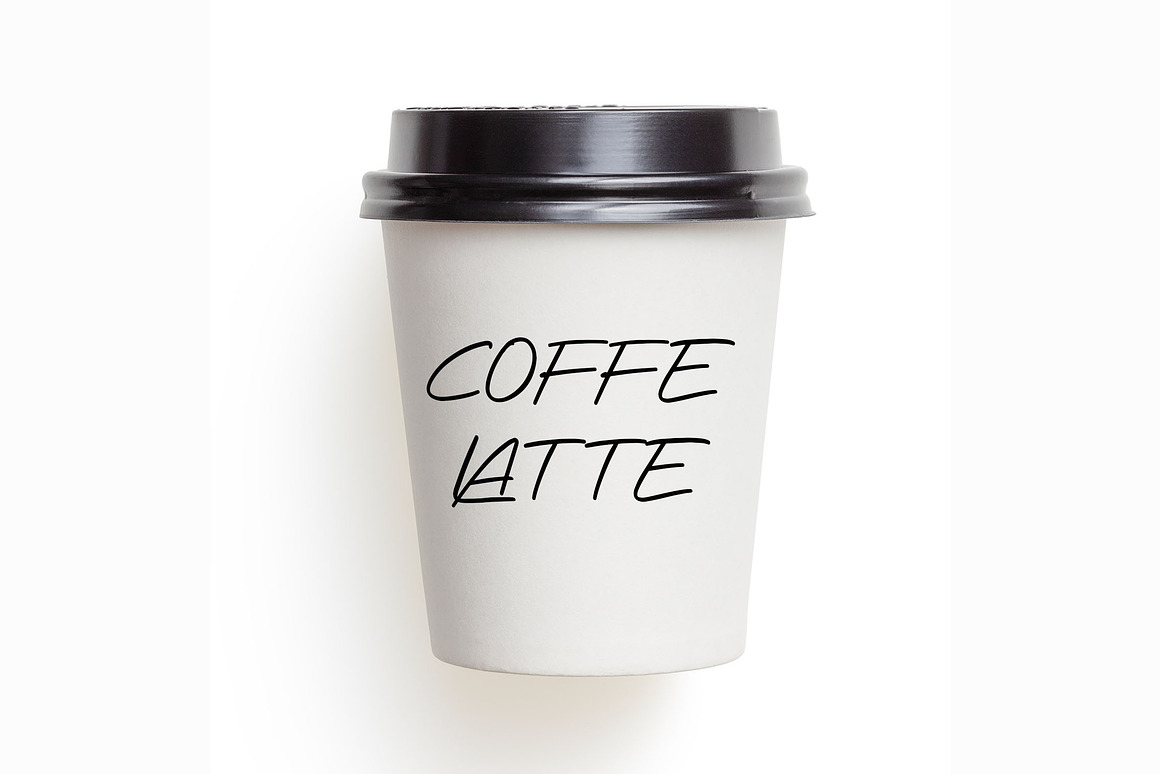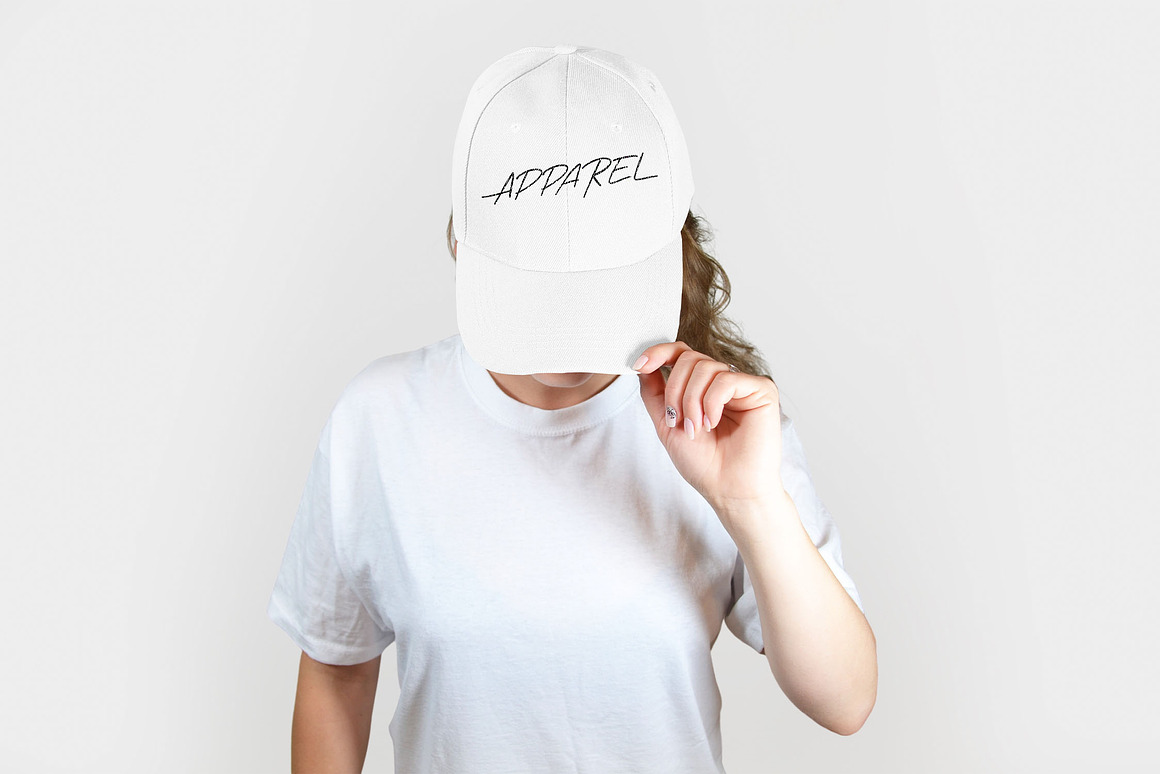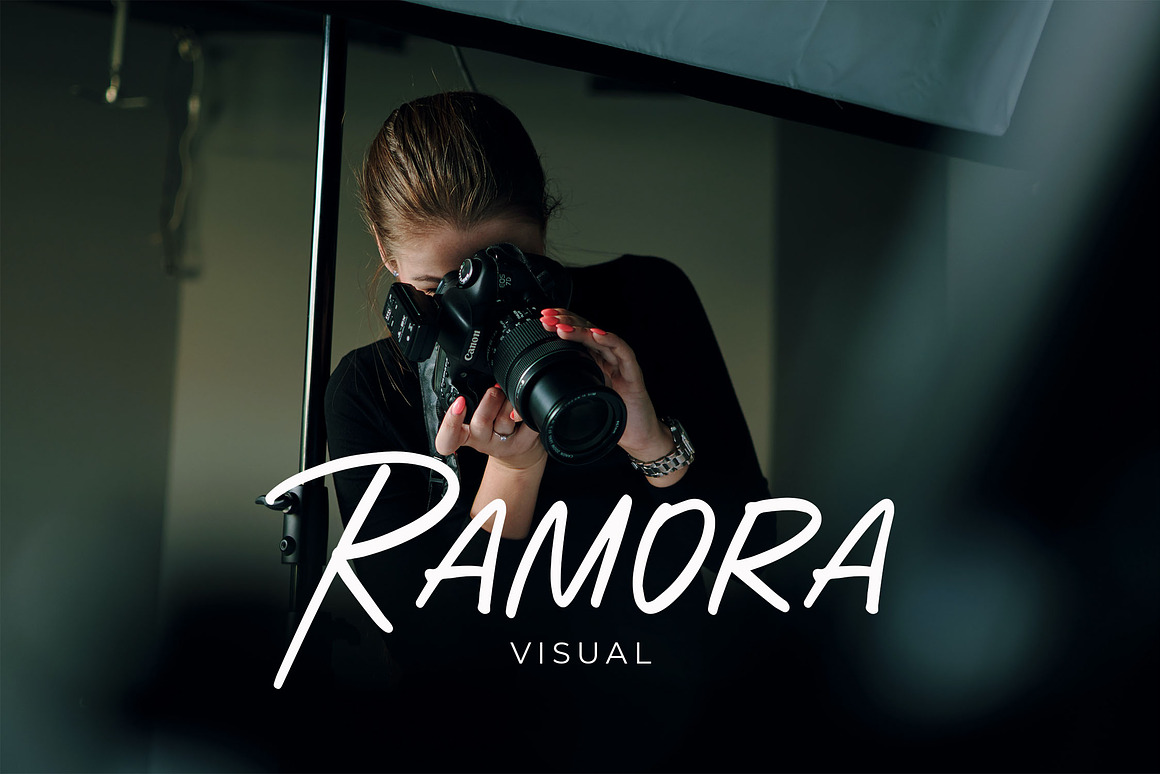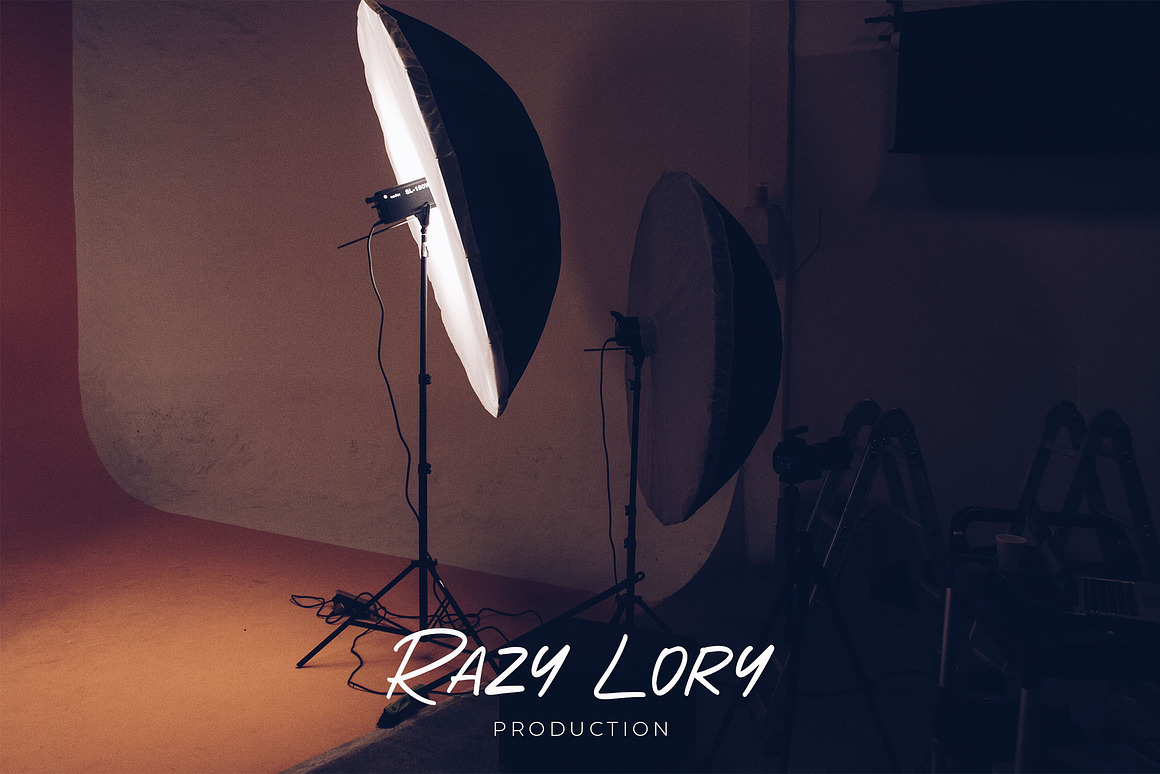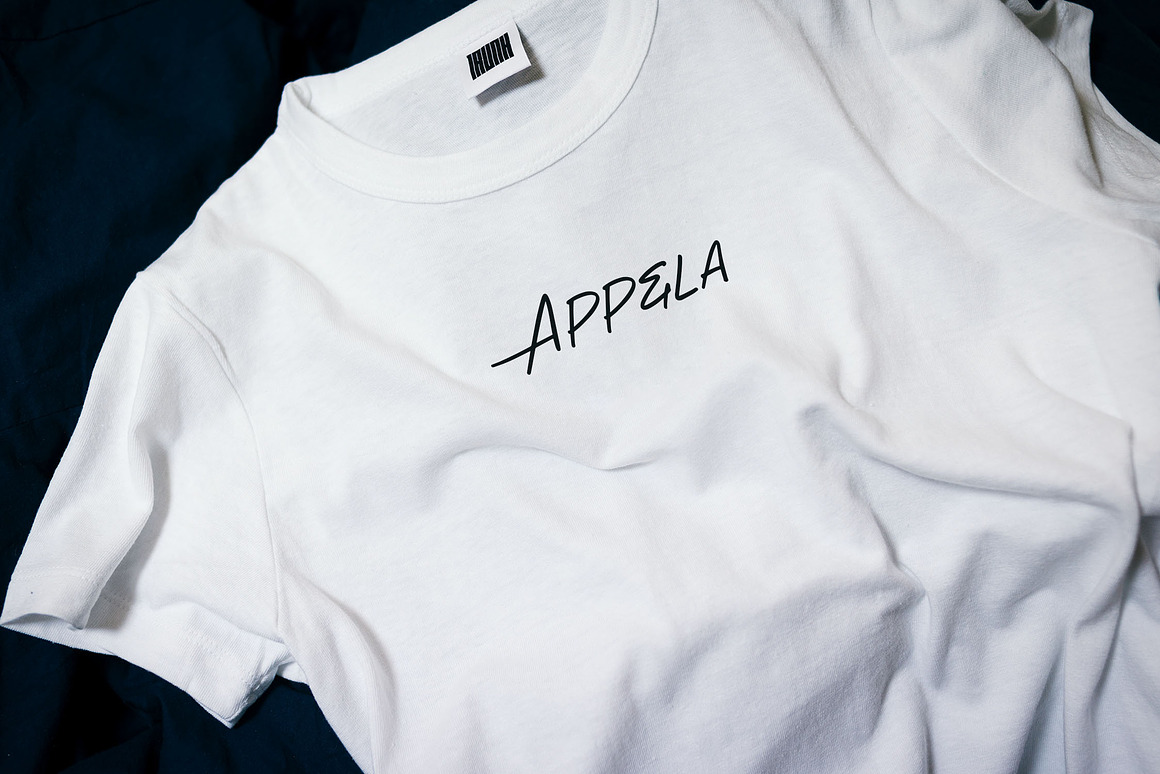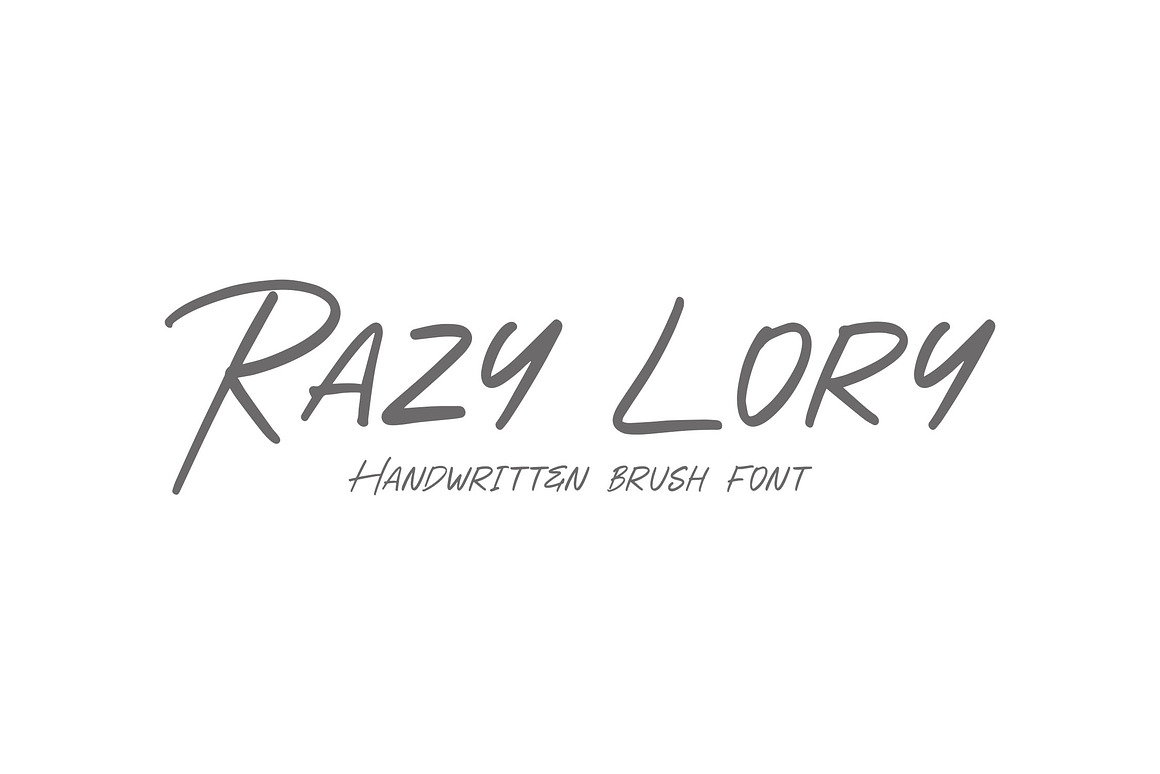
Razy Lory Handwriting Brush Font
Razy Lory - Handwriting Brush Font Introducing Razy Lory, a charming brush font designed with a unique handwriting style. Its distinctive character shapes add a personal and authentic touch to your designs, making it perfect for projects like branding, invitations, social media graphics, and more. With its fluid strokes, Razy Lory enhances the visual appeal of any creative work, making it feel warm and inviting. We appreciate your interest in downloading Razy Lory, and we are dedicated to providing regular updates to keep this font fresh and versatile for your design needs.